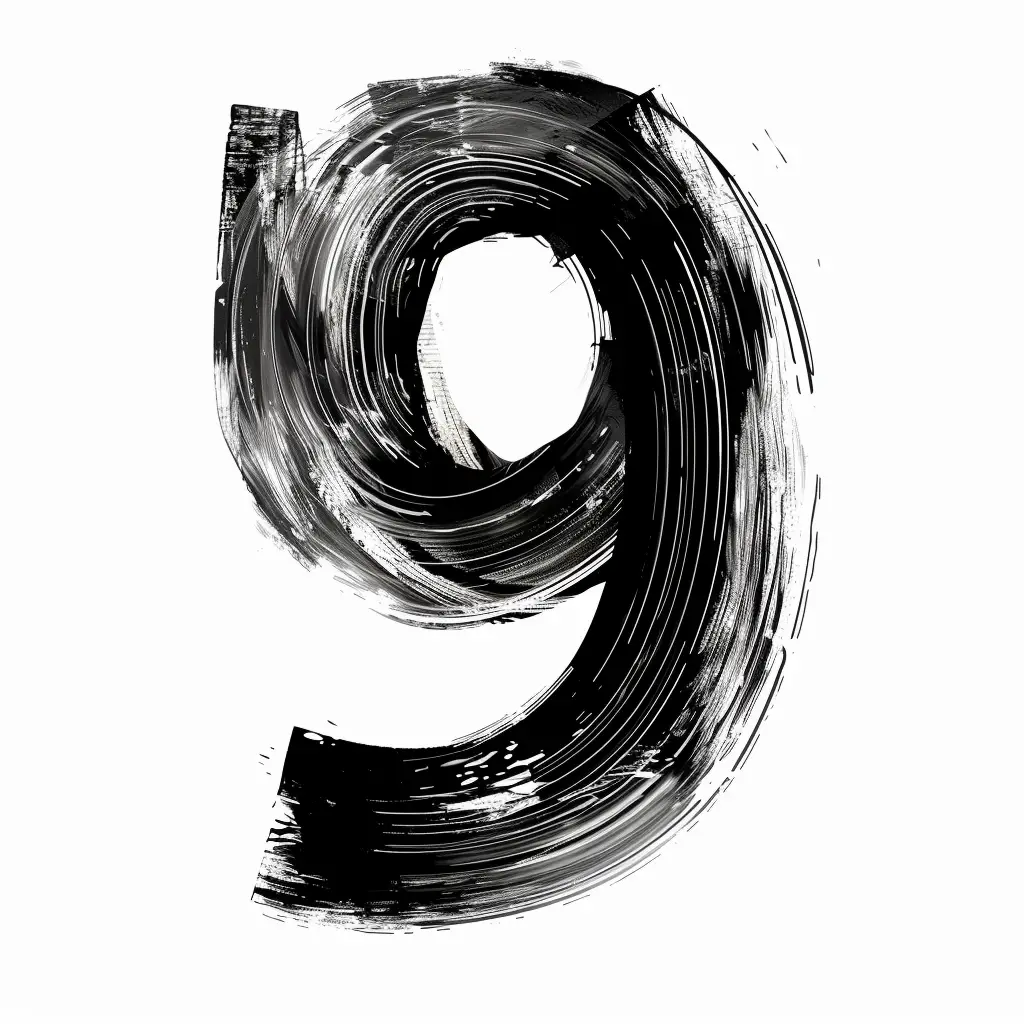
The image features a stylized, abstract representation of the letter "O," rendered in a grungy, brushstroke-inspired style. It uses a monochromatic black-and-white color scheme, with bold, textured strokes and splatters creating a dynamic, artistic effect. The design emphasizes rough edges and uneven lines, giving it a raw, expressive appearance.